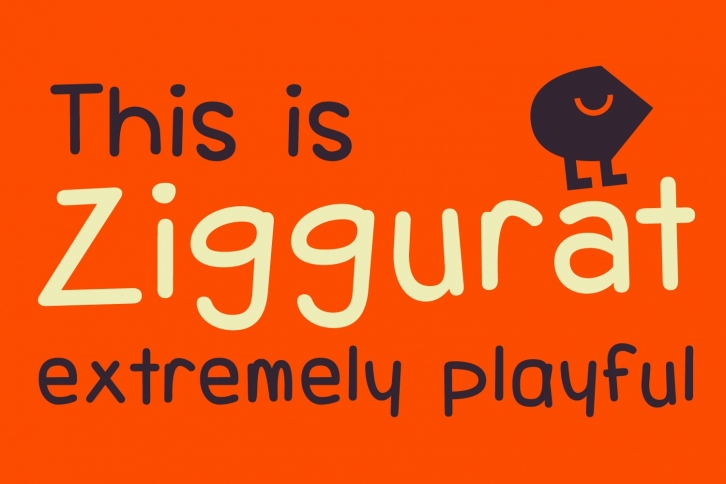
TOMO Ziggurat is a gorgeous font that was realeased on December 2, 2020. The font can be used in many style contexts and design environments. Perfect for invitations, magazines, websites, logos, and more! It was designed by TOMO FONTS and the file size is 4.85 MB. Thanks for checking out this font!